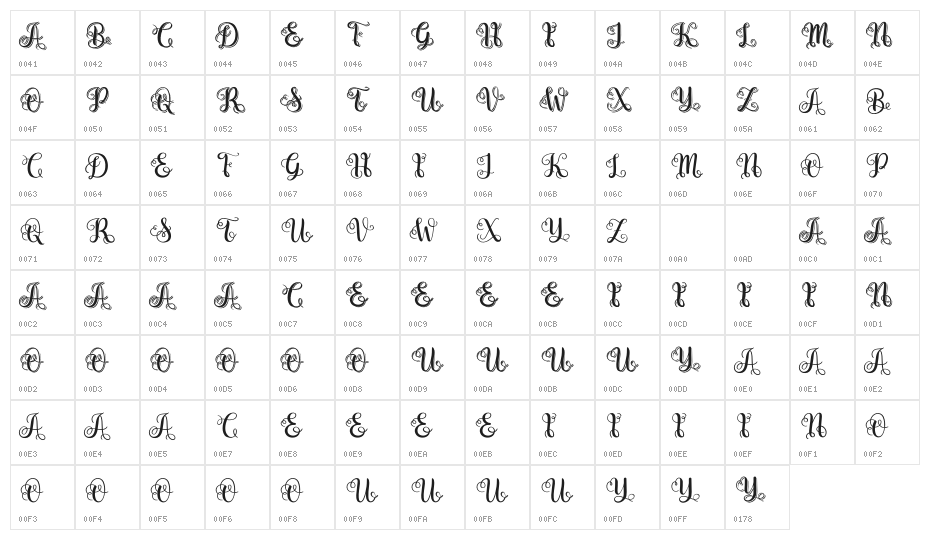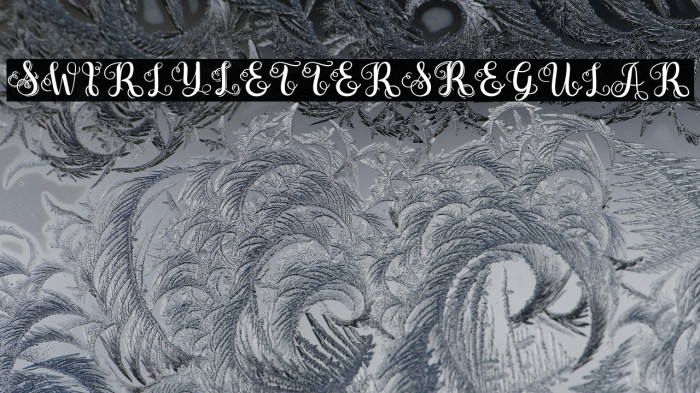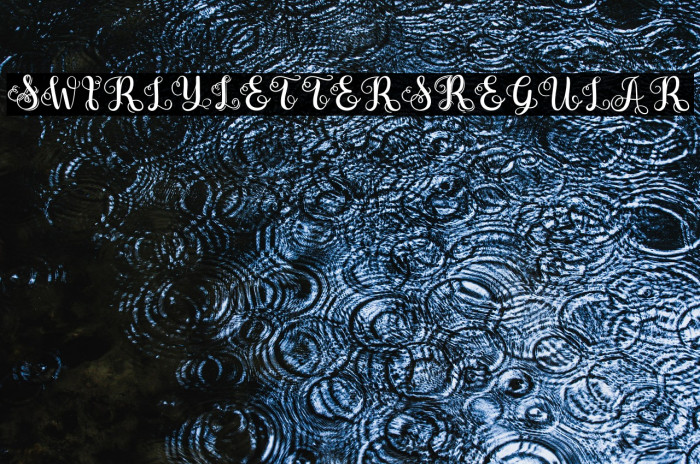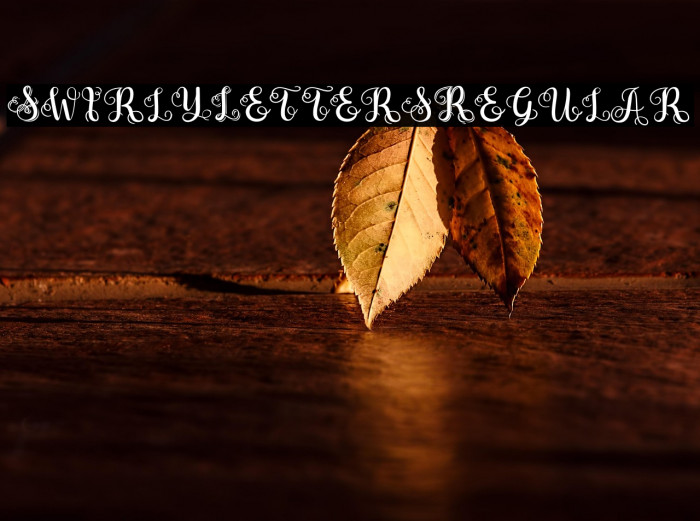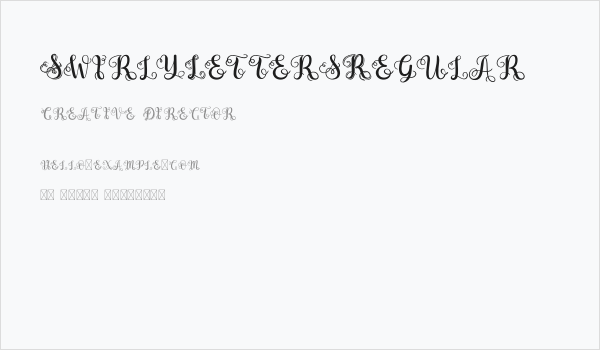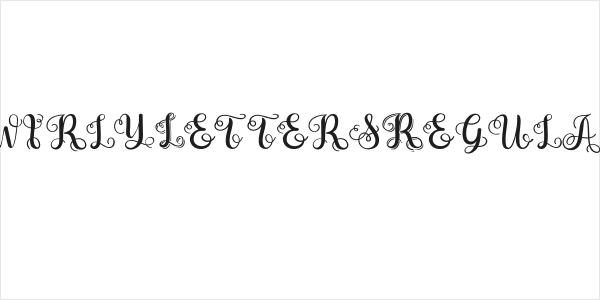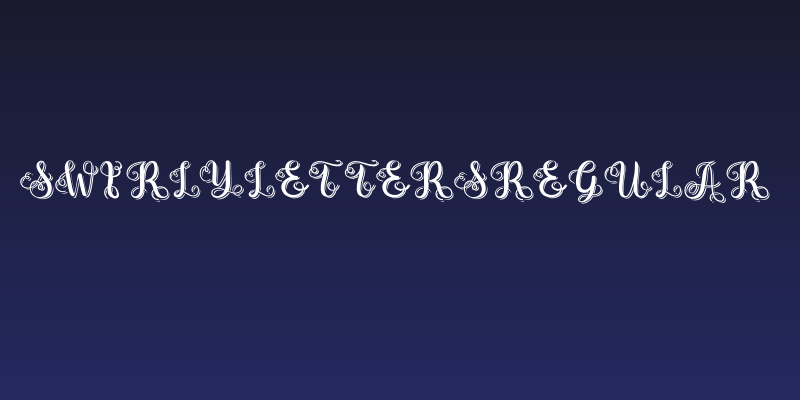
SwirlyLettersRegular Font
SwirlyLettersRegular Description
This font features an ornate and decorative style with intricate swirls and flourishes extending from each character. The uppercase letters are particularly elaborate, with each letter adorned with loops and curls that give it a whimsical and elegant appearance. The lowercase letters maintain the decorative theme, though they are slightly less elaborate, ensuring readability while still offering a touch of sophistication. The numbers and special characters follow the same ornate design, making the font suitable for artistic and creative projects. The overall design is reminiscent of calligraphy, with a modern twist that makes it suitable for contemporary use.
| Proposed Projects | Ideal for wedding invitations, greeting cards, branding, and decorative signage. |